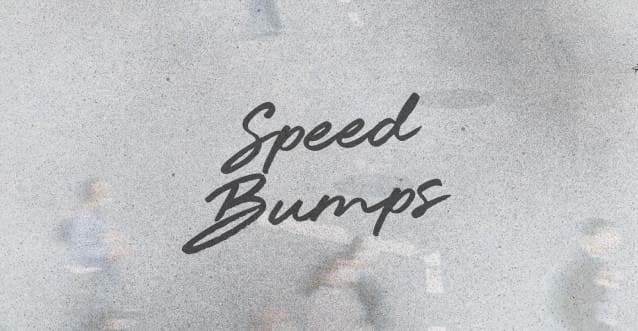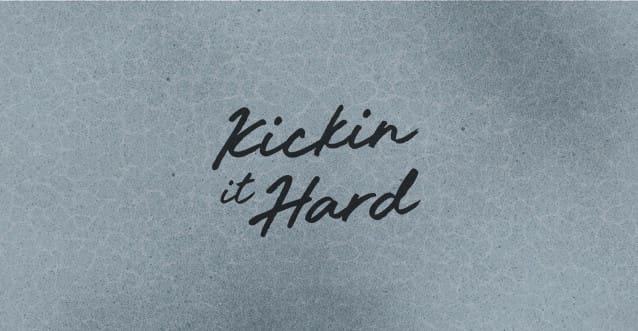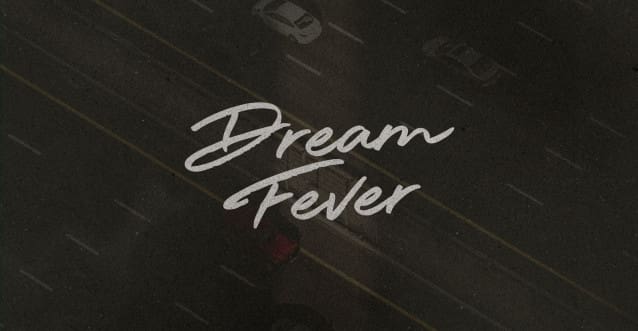
Dream Fever Font
Dream Fever Font Handwritten Brush Script Font, Perfectly fit for branding, logo, wedding things, greeting cards, fashion, lookbook, marketing promotion, anytime you want to look fancy elegant but still casual.